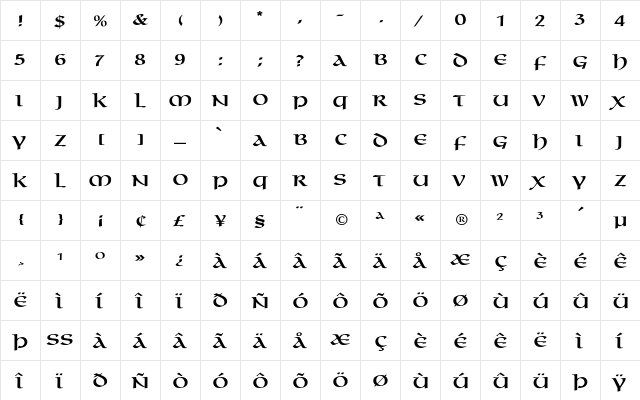
Omnia
Design Context for Omnia Typeface
Omnia is a composed and adaptable typeface that performs quietly and consistently across a wide range of design contexts.